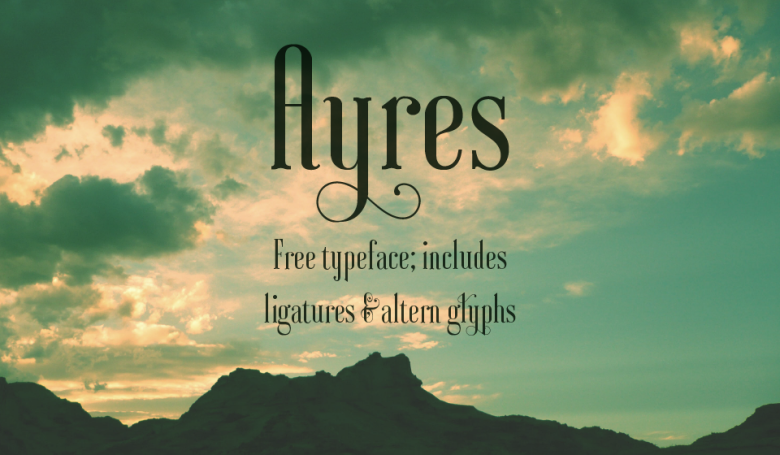
Ayres Typeface
Are you looking for a new typeface for your design project? Introducing Ayres Typeface! With this typeface hope it will fit into your design projects. Ayres designed and shared by Mariel Gornati, a designer comes from San Rafael, Argentina. Ayres Typeface is great for logotype, typography, poster, printed quotes, invitations, cards, product packaging, headers, letterhead, apparel design, label, and etc.